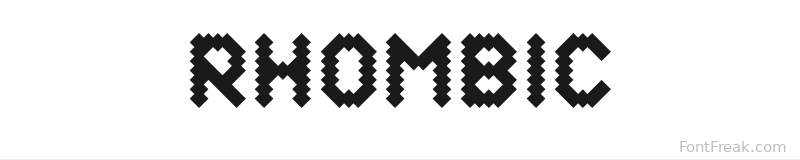
Rhombic
The Rhombic font by GGBot is a striking display typeface that captures attention with its unique geometric design. This decorative font features bold, angular letterforms composed of rhombus shapes, creating a visually dynamic effect. The stroke weight is consistent throughout, offering a balanced appearance that enhances its legibility while maintaining a playful aesthetic. The spacing between characters is thoughtfully designed, ensuring that each letter stands out without sacrificing readability, making it ideal for various applications.
Rhombic excels in creative contexts where visual impact is paramount. It is particularly well-suited for eye-catching wedding invitations, where its distinctive style can convey a sense of modern elegance. Additionally, it’s perfect for movie posters that aim to evoke intrigue and excitement, drawing viewers in with its unique flair. Restaurant menus can also benefit from Rhombic's boldness, allowing for a memorable presentation that reflects the establishment's personality. Furthermore, this font is a great choice for branding projects, helping small business owners create a memorable identity that stands out in a crowded marketplace.
Targeting graphic designers, small business owners, and content creators, Rhombic offers versatility and creativity for those looking to make a statement. Its freeware license means that anyone can access and utilize this font without restriction, making it an appealing choice for budget-conscious projects.
What sets the Rhombic font apart is its ability to merge artistic flair with functionality. Its geometric design not only captivates the eye but also conveys professionalism, making it suitable for both formal and informal uses. For anyone looking to elevate their design projects, the Rhombic font free download is an opportunity to explore a fresh and engaging typographical style that leaves a lasting impression.